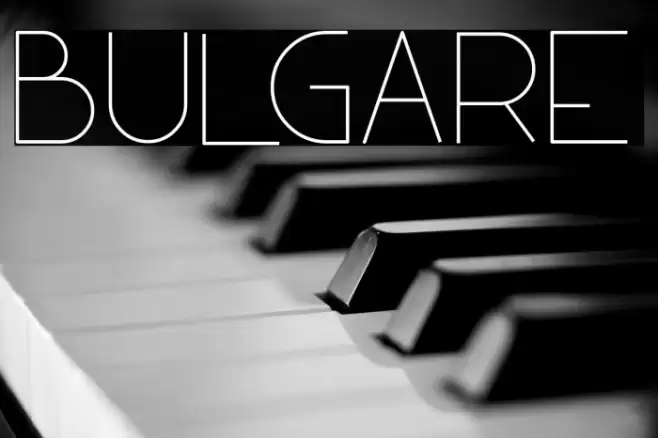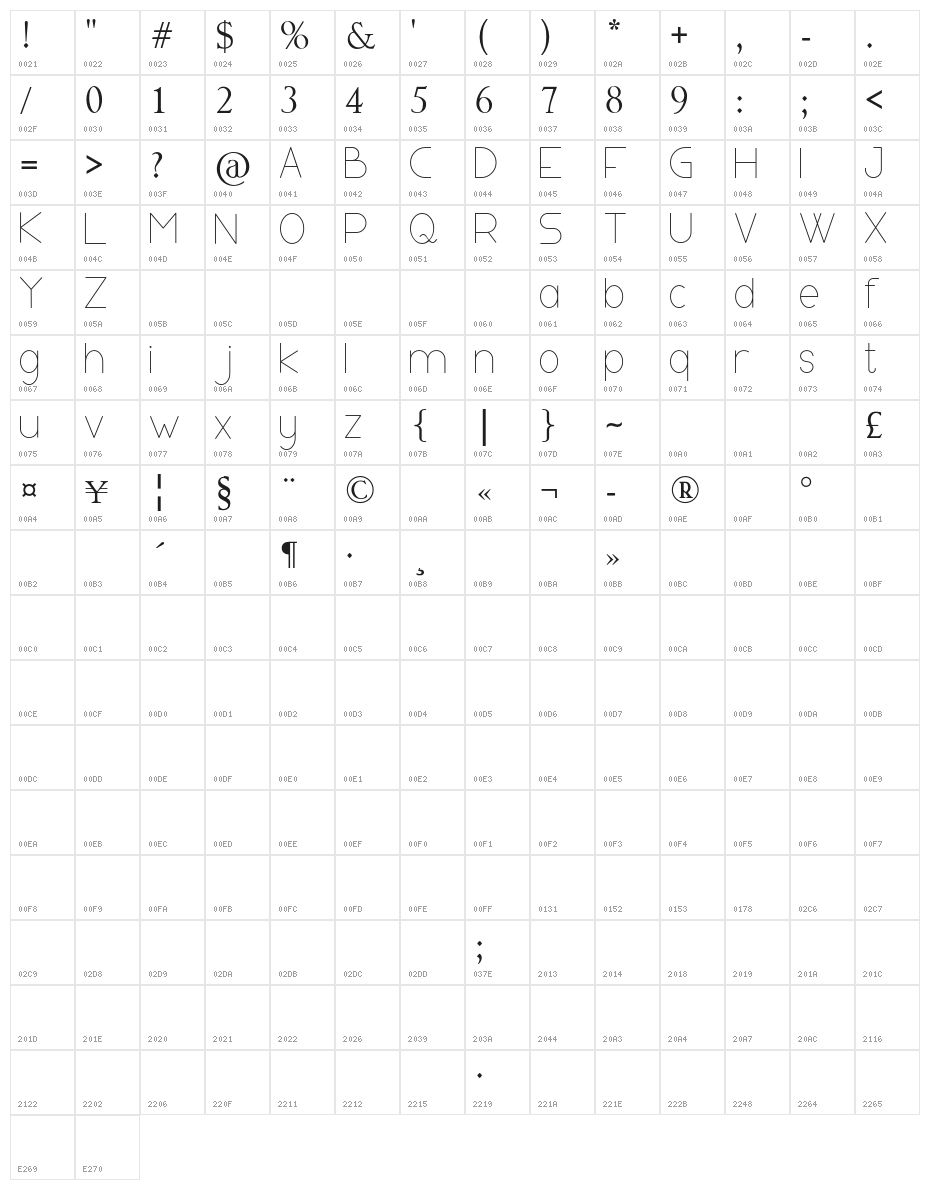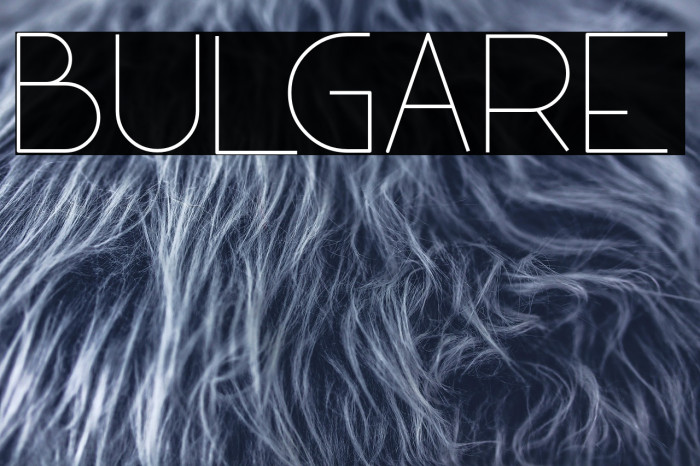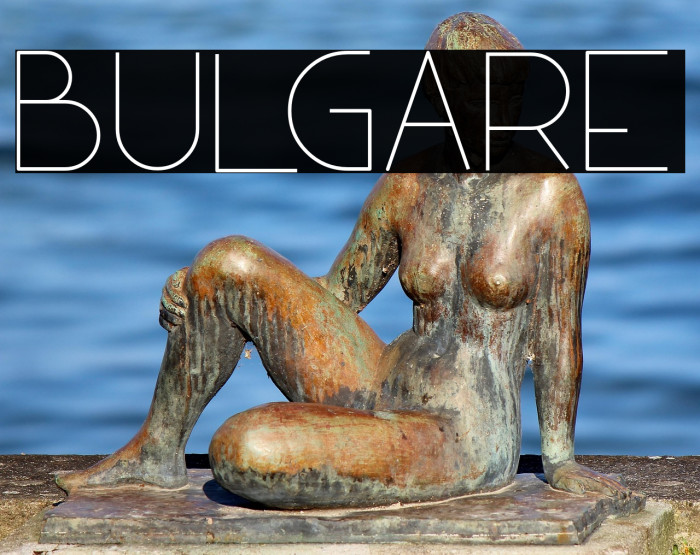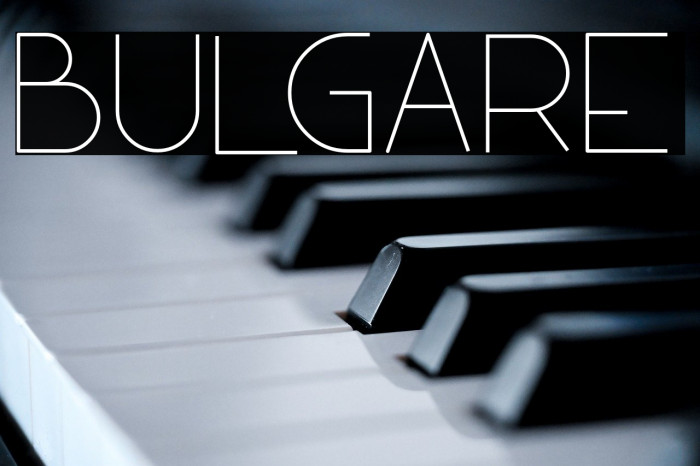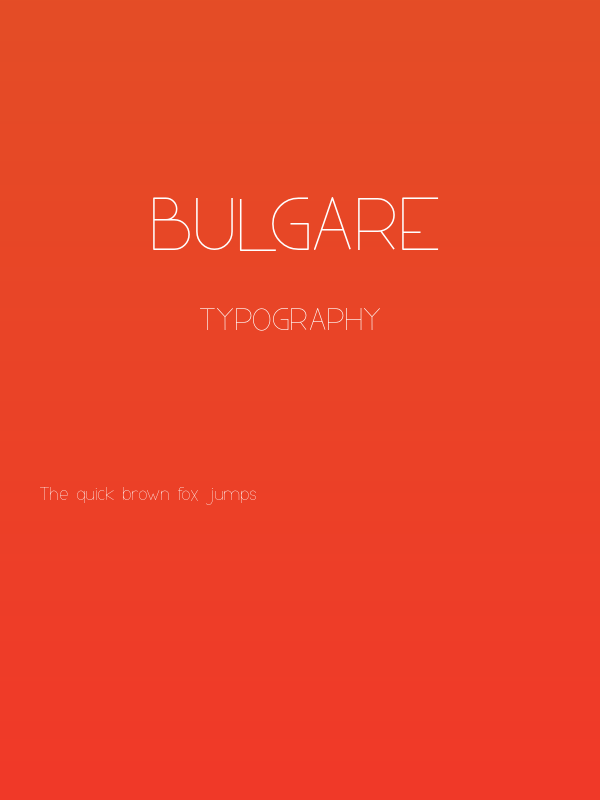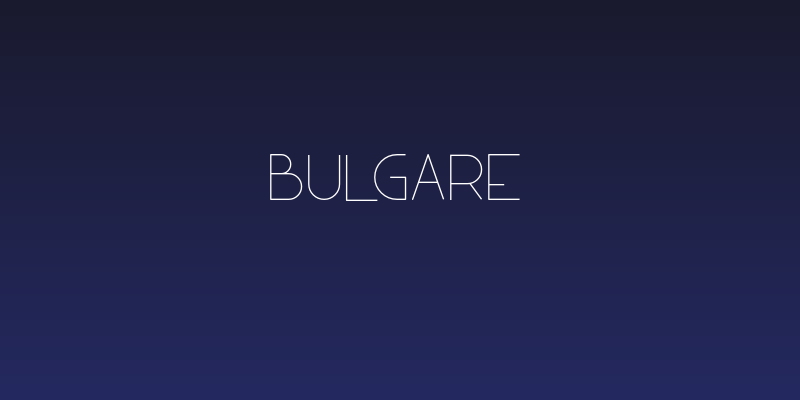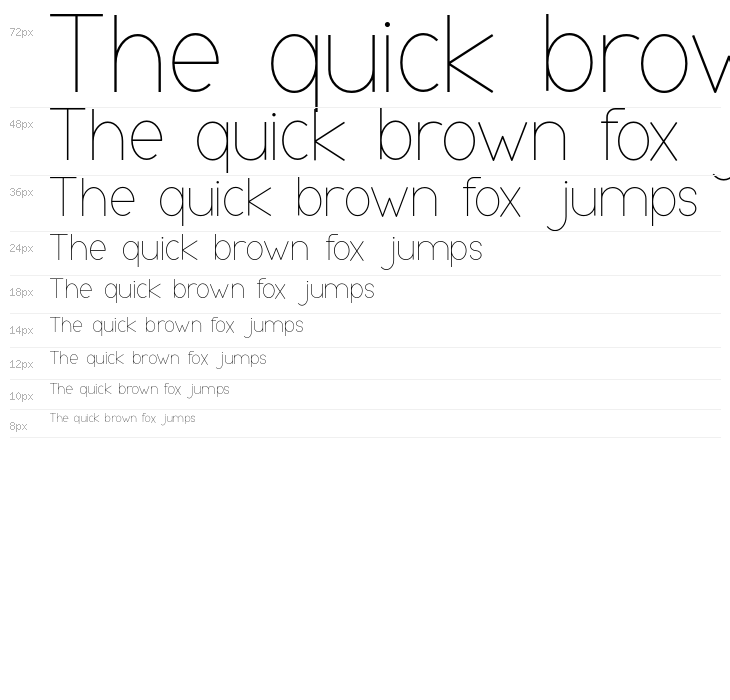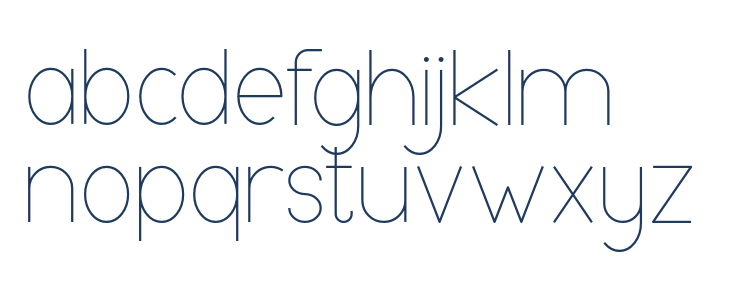
BULGARE Font
This font features a sleek and modern design with clean lines and a minimalist aesthetic. The uppercase letters are tall and narrow, giving a sense of elegance and sophistication. The lowercase letters maintain a consistent style with smooth curves and a balanced structure. The numerals are bold and clear, ensuring readability. Special characters are designed with the same attention to detail, providing a cohesive look across all glyphs. This font's simplicity and clarity make it versatile for various design applications.
A sleek, modern font with clean lines and a minimalist aesthetic from Regular fonts.
- Proposed Projects: Ideal for branding, editorial design, advertising, and digital interfaces where a modern and clean look is desired.